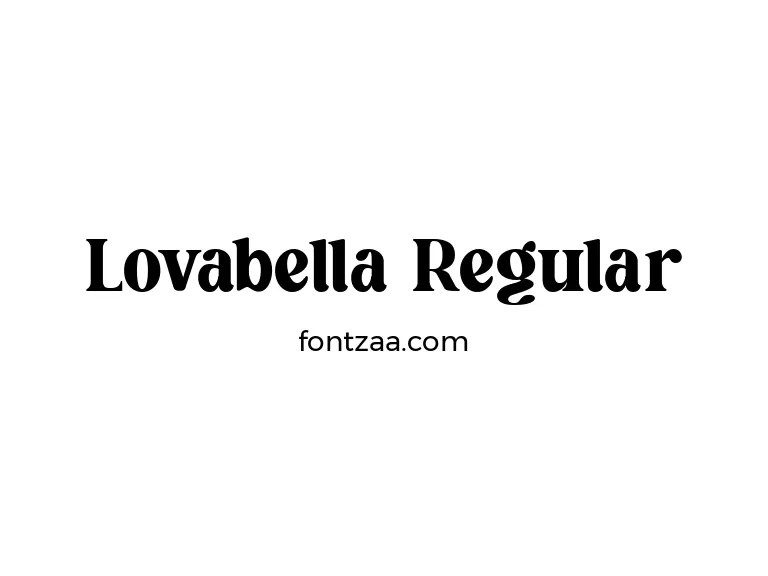
Lovabella Regular Font introduces a elegant typographic style that can give creative projects a more individual appearance. With its distinctive letterforms, Lovabella Regular Font can introduce a elegant character into creative display work. Its letter shapes become especially noticeable at larger sizes, where spacing and proportions can be explored more clearly. Different color combinations can make the same font feel subtle, energetic, premium or highly decorative. The typeface can change considerably depending on tracking, scale, alignment, background and surrounding imagery. Its display-focused appearance makes it worth testing in invitations, wedding stationery, signatures, quotes and elegant branding. Keeping secondary typography simple often allows the distinctive qualities of the main font to remain more visible. For layouts containing longer information, pairing it with a simpler supporting typeface can improve readability and hierarchy. According to the available font information, the typeface is associated with Aksapix Studio. License details are currently listed as Free for personal use. Users should verify the supplied documentation before using the font in products or paid projects. A few quick layout variations can help determine where the font creates the strongest visual result.
Lovabella Regular Font brings a elegant personality to typography and gives designers a flexible starting point for headlines, branding and promotional layouts. Testing several arrangements before choosing the final version can reveal which characteristics of the typeface work best. Different color combinations can make the same font feel subtle, energetic, premium or highly decorative. Its letter shapes become especially noticeable at larger sizes, where spacing and proportions can be explored more clearly. The font can be considered for projects such as invitations, wedding stationery, signatures, quotes and elegant branding. A clean serif or sans serif companion can handle smaller text while this font remains focused on headlines and key messages. Print and digital layouts may require different sizing and spacing, so testing the actual output dimensions is recommended. The available source information lists Aksapix Studio as the designer or publisher. The listed license is Free for personal use, although users should still review the original font package before commercial use. Experimenting directly in the intended design is usually the best way to judge whether the typeface suits the project.
Lovabella Regular Font brings a elegant personality to typography and gives designers a flexible starting point for digital and print projects. The typeface can change considerably depending on tracking, scale, alignment, background and surrounding imagery. The font can work as the primary visual element in a minimal layout or as part of a more detailed composition. Using generous space around the lettering can help the details of the typeface remain visible instead of competing with other elements. Creative uses may range from invitations, wedding stationery, signatures, quotes and elegant branding, with different results depending on scale and layout. Previewing the final layout on both large and small screens helps identify spacing and readability problems early. A clean serif or sans serif companion can handle smaller text while this font remains focused on headlines and key messages. The designer or publisher information available for this typeface is Aksapix Studio. The available licensing label is Free for personal use, but redistribution and commercial permissions should always be confirmed from the original source. Testing the font with the actual project text can provide a much better impression than viewing isolated sample characters.
Lovabella Regular Font Family
Designers can use the Lovabella Regular Font Family in several ways by varying scale, alignment, background treatment and supporting typography. Lovabella Regular Font brings a elegant personality to typography and gives designers a flexible starting point for font-family exploration. Using generous space around the lettering can help the details of the typeface remain visible instead of competing with other elements. The typeface can change considerably depending on tracking, scale, alignment, background and surrounding imagery. The font can work as the primary visual element in a minimal layout or as part of a more detailed composition. Its display-focused appearance makes it worth testing in invitations, wedding stationery, signatures, quotes and elegant branding. Keeping secondary typography simple often allows the distinctive qualities of the main font to remain more visible. Print and digital layouts may require different sizing and spacing, so testing the actual output dimensions is recommended. According to the available font information, the typeface is associated with Aksapix Studio. The available licensing label is Free for personal use, but redistribution and commercial permissions should always be confirmed from the original source. Its final appearance will depend heavily on the surrounding colors, imagery, spacing and supporting typography.
| Designer | Aksapix Studio |
Choosing Supporting Fonts for Lovabella Regular Font
For projects that need typography with a stronger identity, Lovabella Regular Font offers a elegant direction suited to combining the display font with supporting typefaces. The typeface can change considerably depending on tracking, scale, alignment, background and surrounding imagery. Using generous space around the lettering can help the details of the typeface remain visible instead of competing with other elements. The font can work as the primary visual element in a minimal layout or as part of a more detailed composition. Designers may explore it across invitations, wedding stationery, signatures, quotes and elegant branding, depending on the tone and requirements of the project. Print and digital layouts may require different sizing and spacing, so testing the actual output dimensions is recommended. Designers should evaluate the typeface inside the real project because a standalone preview cannot show every possible visual combination. Source metadata currently associates the font with Aksapix Studio. The listed license is Free for personal use, although users should still review the original font package before commercial use. A few quick layout variations can help determine where the font creates the strongest visual result.
Using Lovabella Regular Font in Logos
For projects that need typography with a stronger identity, Lovabella Regular Font offers a elegant direction suited to logos, wordmarks and visual identity systems. The typeface can change considerably depending on tracking, scale, alignment, background and surrounding imagery. Testing several arrangements before choosing the final version can reveal which characteristics of the typeface work best. Different color combinations can make the same font feel subtle, energetic, premium or highly decorative. The font can be considered for projects such as invitations, wedding stationery, signatures, quotes and elegant branding. Previewing the final layout on both large and small screens helps identify spacing and readability problems early. Keeping secondary typography simple often allows the distinctive qualities of the main font to remain more visible. The designer or publisher information available for this typeface is Aksapix Studio. License details are currently listed as Free for personal use. Users should verify the supplied documentation before using the font in products or paid projects. Its final appearance will depend heavily on the surrounding colors, imagery, spacing and supporting typography.
Explore More Fonts After Lovabella Regular Font
The visual character of Lovabella Regular Font makes it an interesting choice for designers working on discovering alternatives and related typography. Testing several arrangements before choosing the final version can reveal which characteristics of the typeface work best. The typeface can change considerably depending on tracking, scale, alignment, background and surrounding imagery. Using generous space around the lettering can help the details of the typeface remain visible instead of competing with other elements. Possible applications include invitations, wedding stationery, signatures, quotes and elegant branding. Designers should evaluate the typeface inside the real project because a standalone preview cannot show every possible visual combination. A clean serif or sans serif companion can handle smaller text while this font remains focused on headlines and key messages. The available source information lists Aksapix Studio as the designer or publisher. License details are currently listed as Free for personal use. Users should verify the supplied documentation before using the font in products or paid projects. The most effective treatment will vary by project, so designers should compare several versions before finalizing the artwork. Explore more typography on Fontzaa or browse the 100% Free Fonts collection.
What Makes Lovabella Regular Font Stand Out
For projects that need typography with a stronger identity, Lovabella Regular Font offers a elegant direction suited to the visual characteristics and design personality of the typeface. Testing several arrangements before choosing the final version can reveal which characteristics of the typeface work best. Using generous space around the lettering can help the details of the typeface remain visible instead of competing with other elements. Its letter shapes become especially noticeable at larger sizes, where spacing and proportions can be explored more clearly. Creative uses may range from invitations, wedding stationery, signatures, quotes and elegant branding, with different results depending on scale and layout. Previewing the final layout on both large and small screens helps identify spacing and readability problems early. Designers should evaluate the typeface inside the real project because a standalone preview cannot show every possible visual combination. According to the available font information, the typeface is associated with Aksapix Studio. Current license information is shown as Free for personal use; checking the original documentation is recommended before client or commercial work. The most effective treatment will vary by project, so designers should compare several versions before finalizing the artwork.